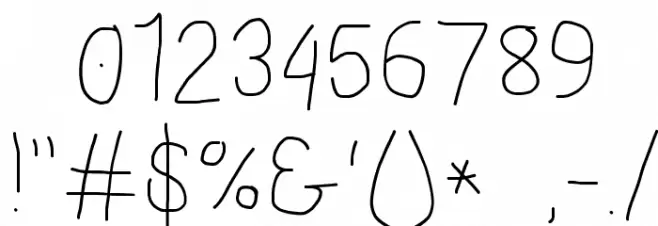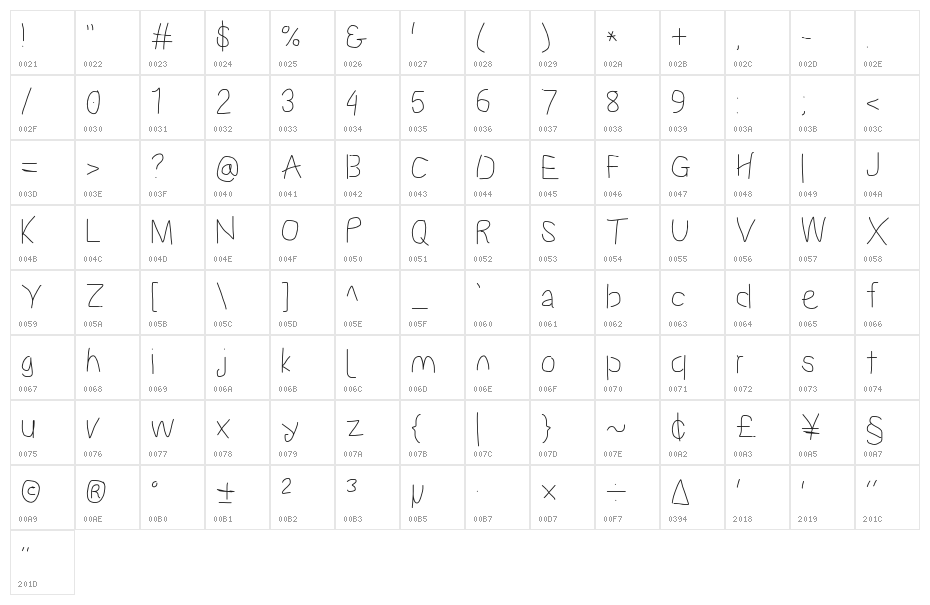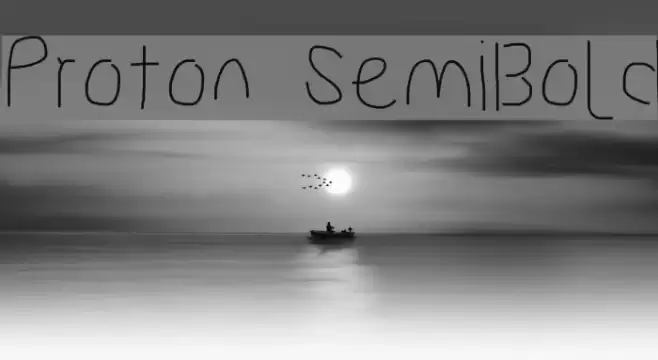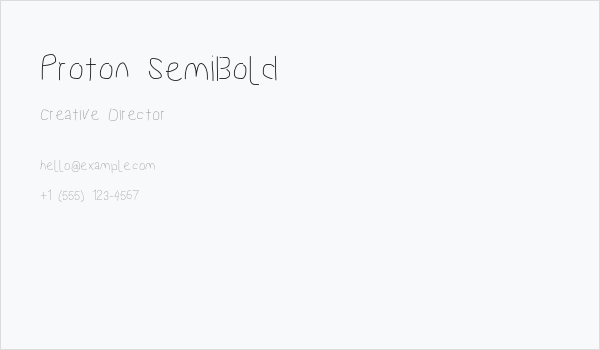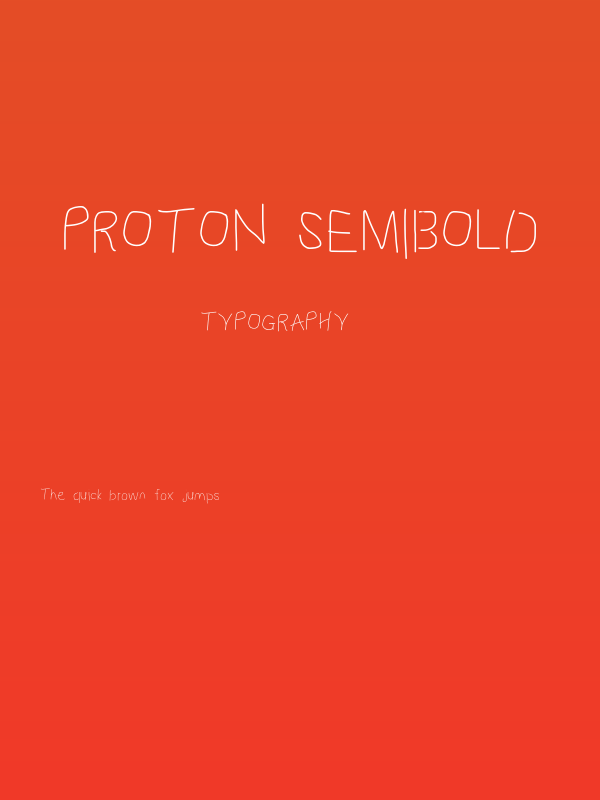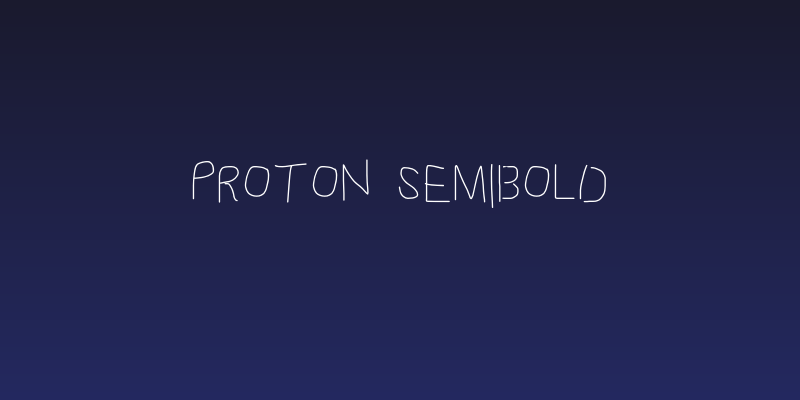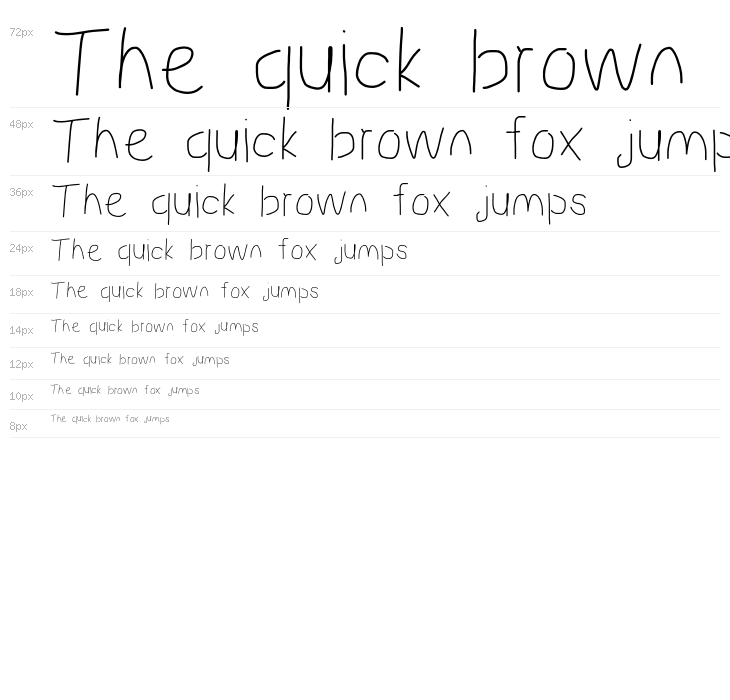
Proton SemiBold Font
Proton SemiBold Description
This font features a playful and casual handwritten style, characterized by its irregular strokes and slightly uneven baseline. The letters are tall and narrow, with a whimsical touch that gives them a friendly and approachable appearance. The uppercase and lowercase letters maintain a consistent style, with rounded edges and a slight tilt, adding to the informal feel. The numerals and special characters follow the same design principles, ensuring a cohesive look across all glyphs. The overall design is simple yet expressive, making it suitable for projects that require a personal or informal touch.
| Use Case | Logos, Headlines, Informal text |
| Proposed Projects | Ideal for greeting cards, children's books, casual branding, and social media graphics. |